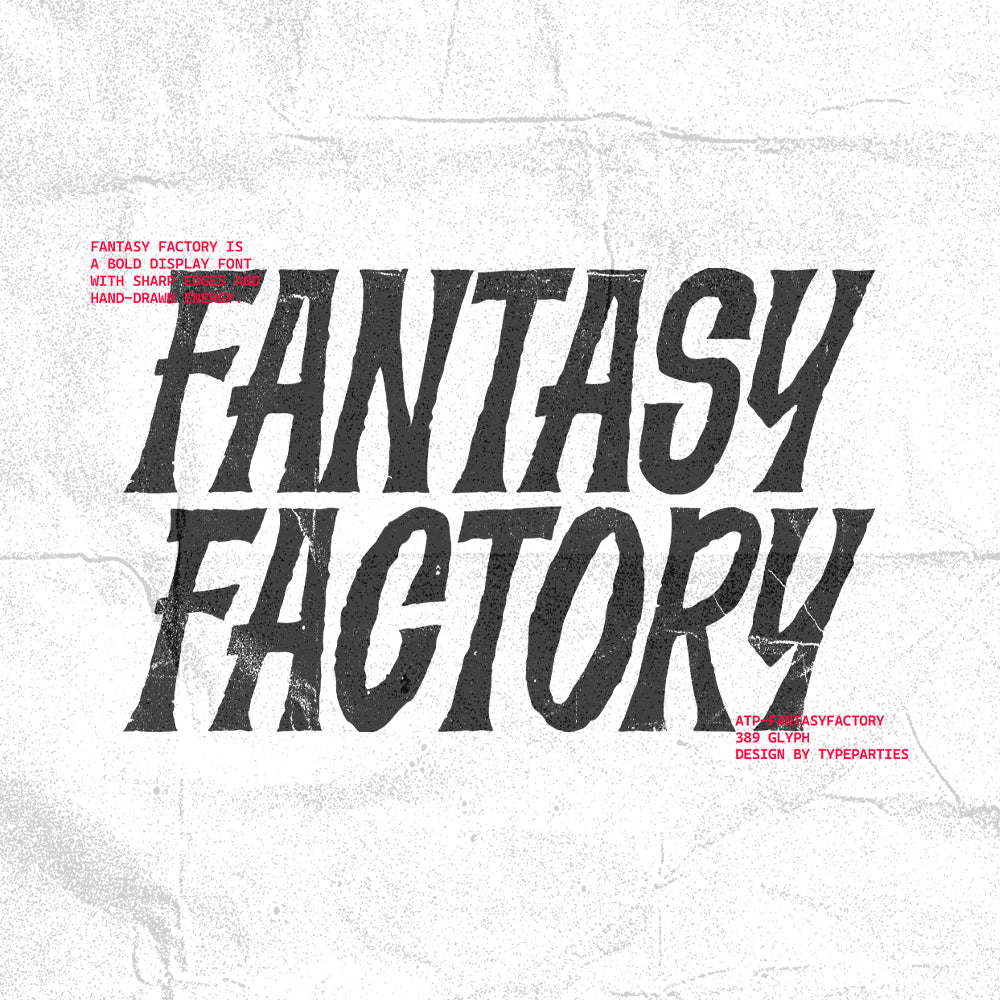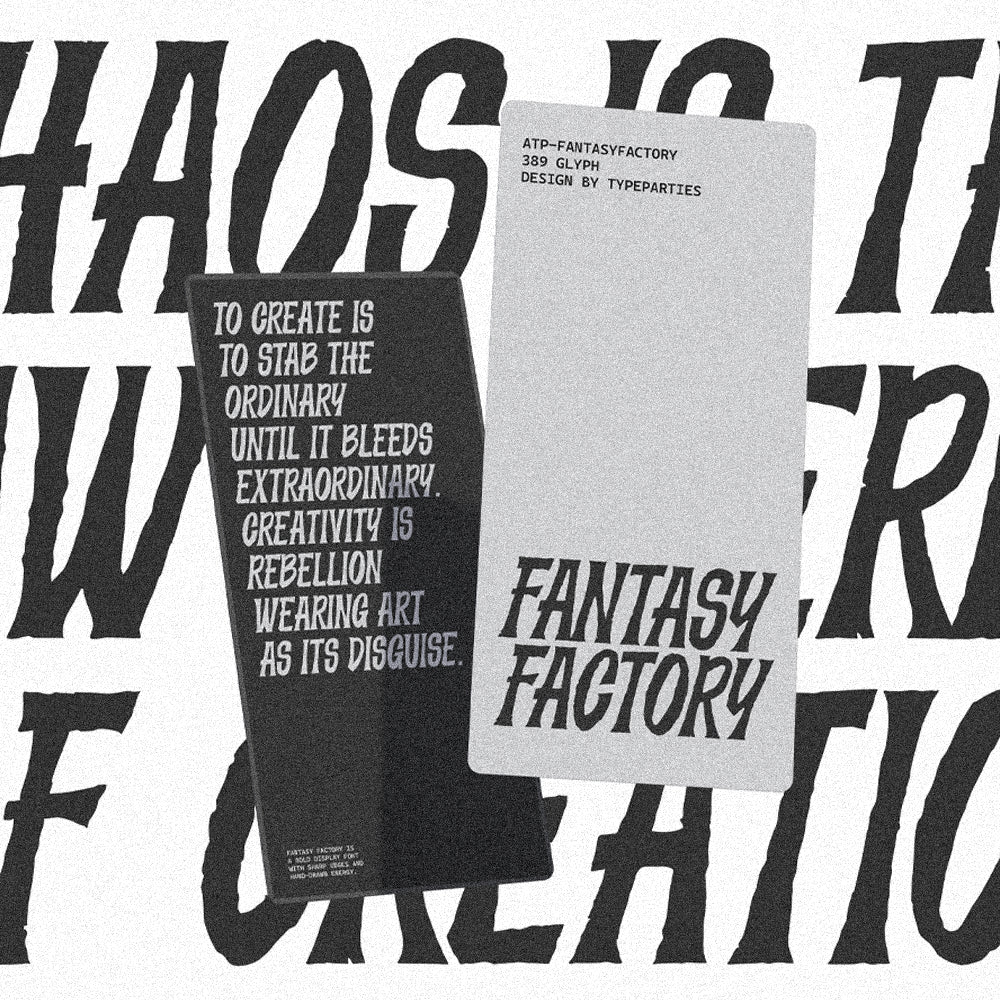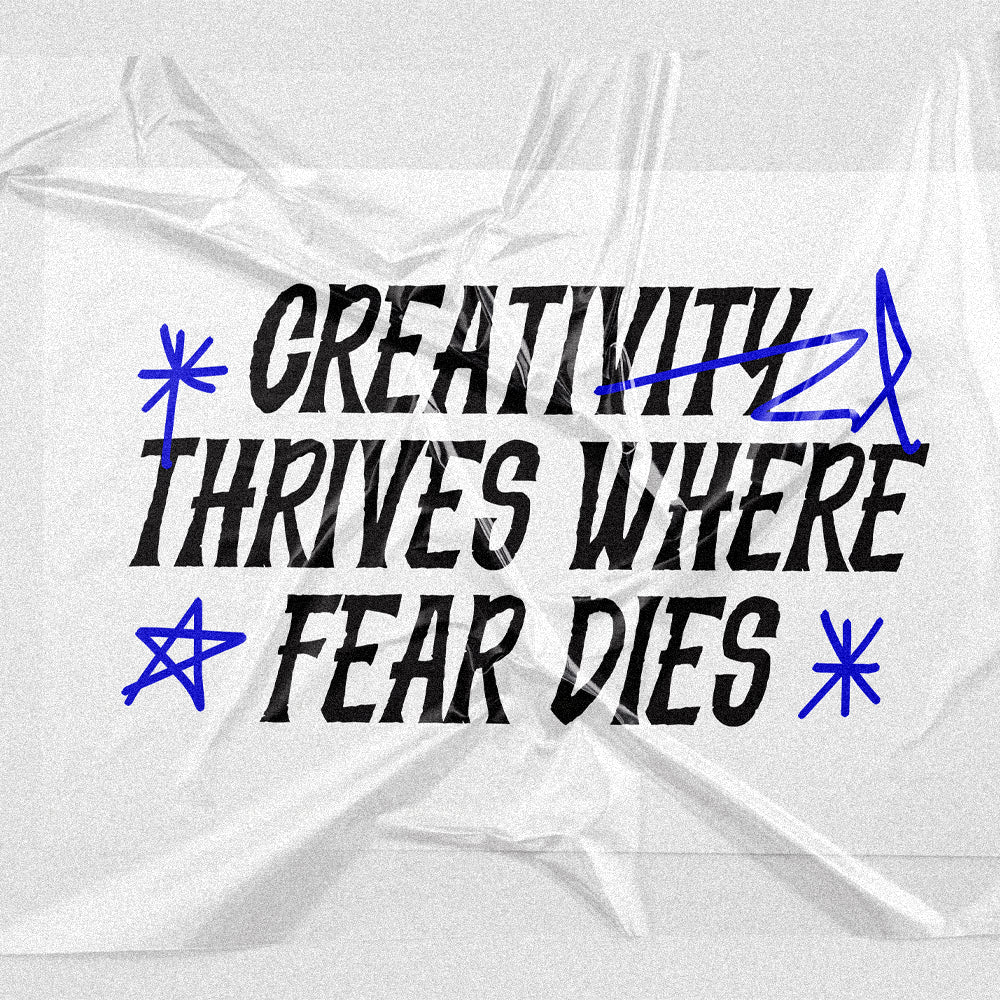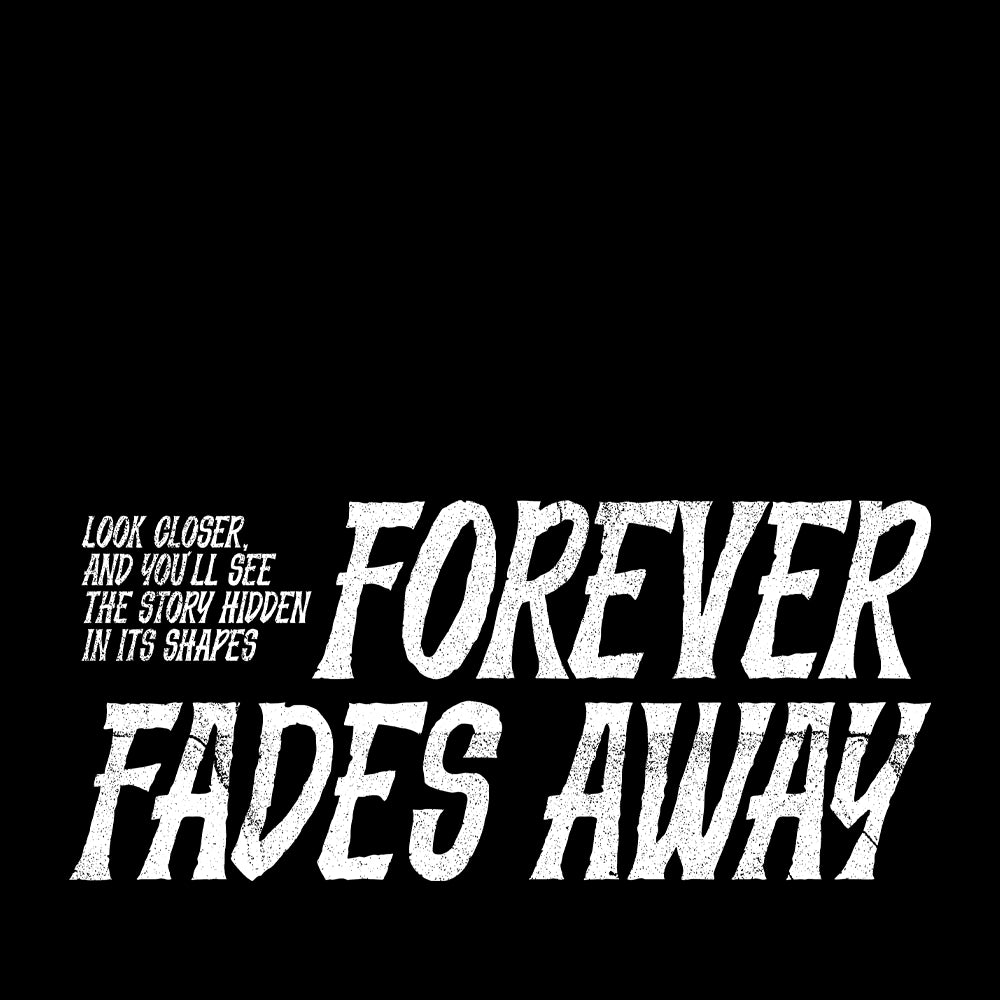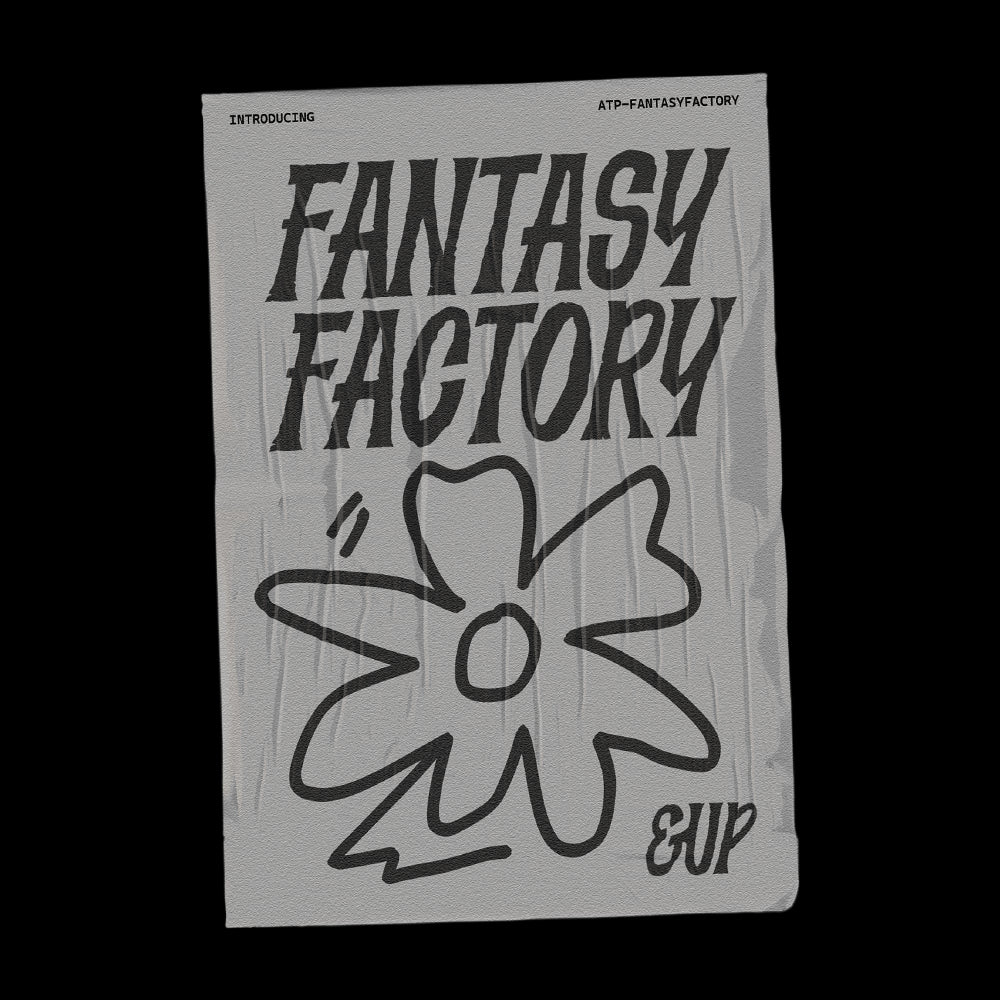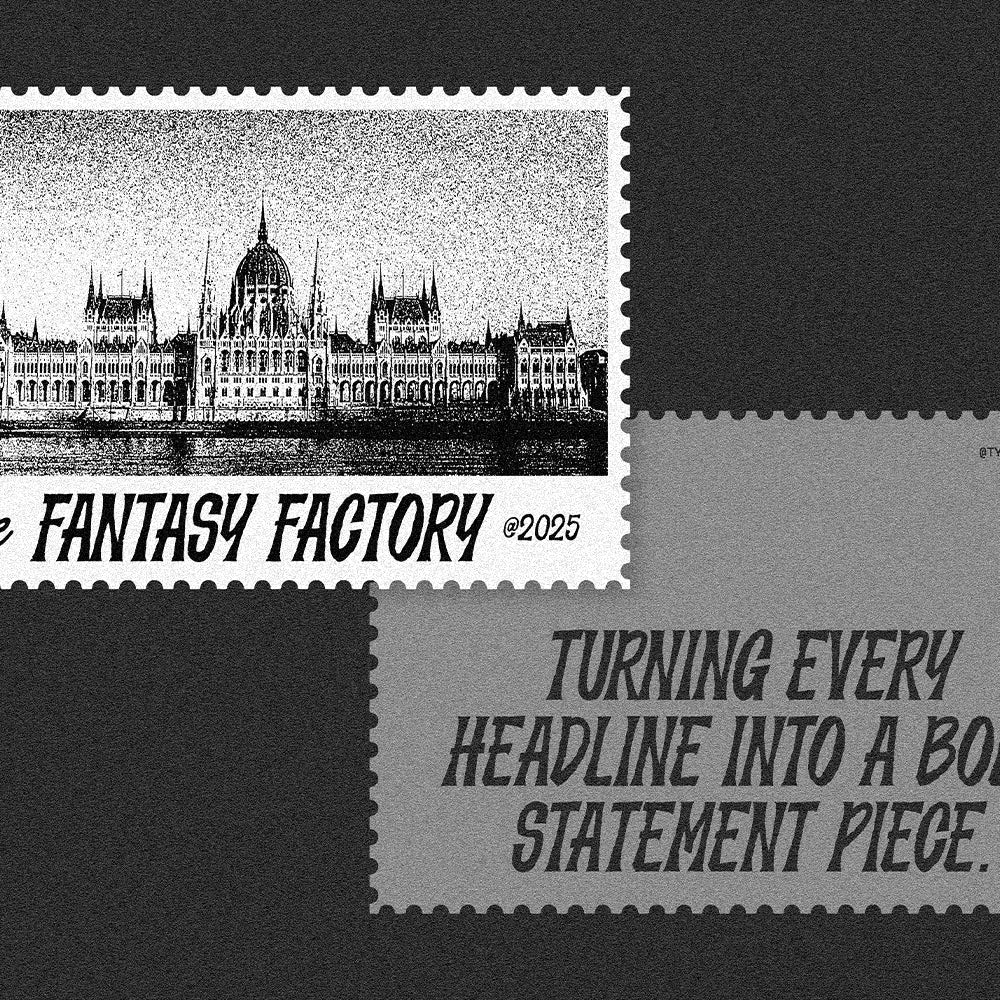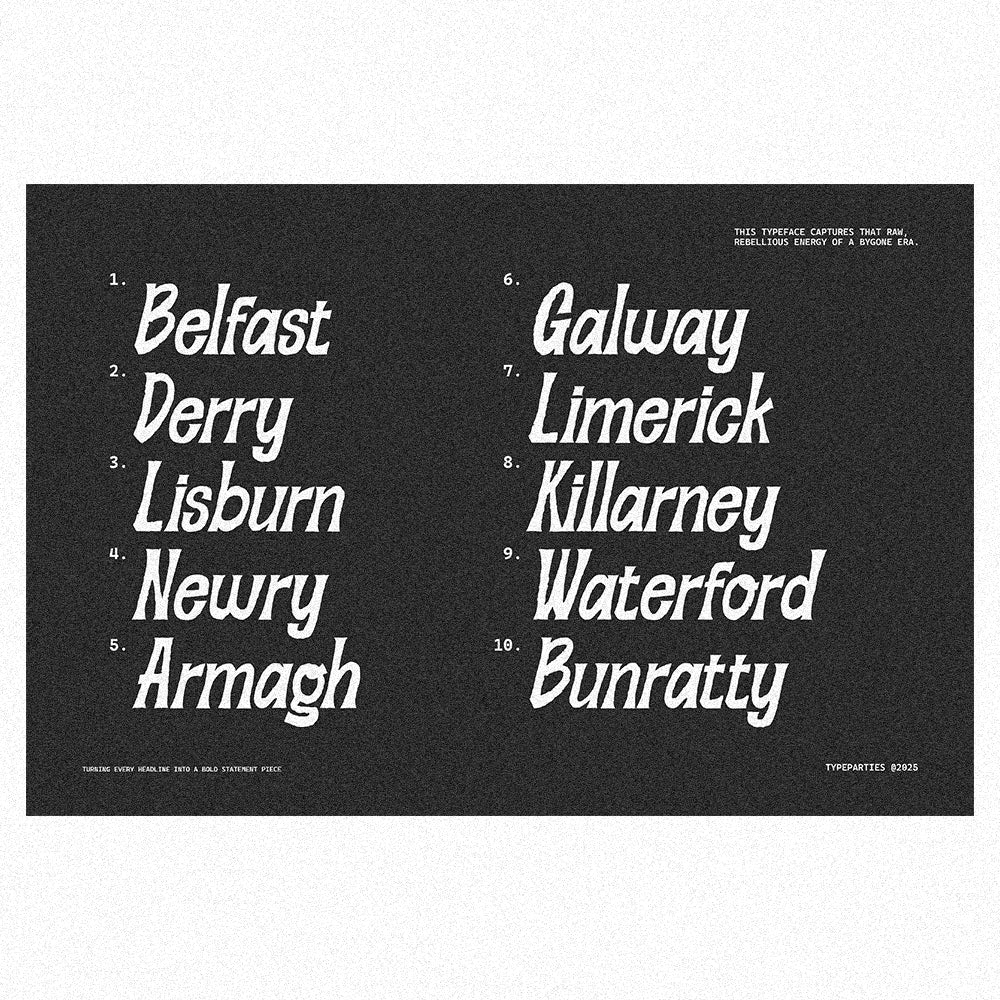
FantasyFactory Rough Display Font
The FantasyFactory Rough Display Font is a retro-inspired typeface that features uppercase and lowercase letters, numerics, punctuation, and multilingual support. Available in .otf format, it showcases a slightly imperfect design reminiscent of vintage print styles.